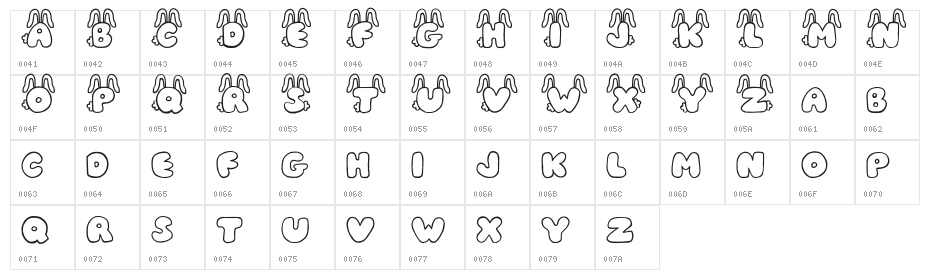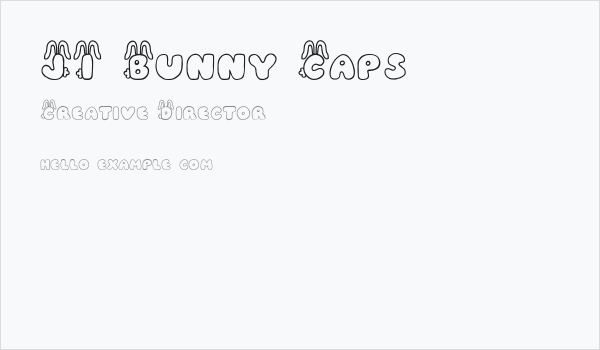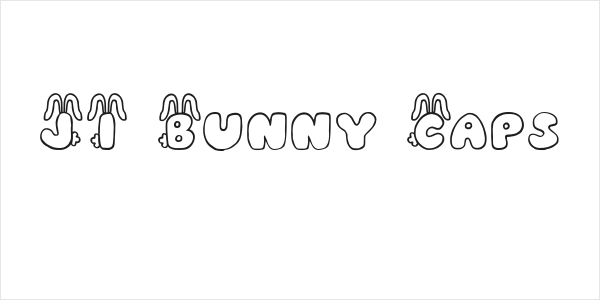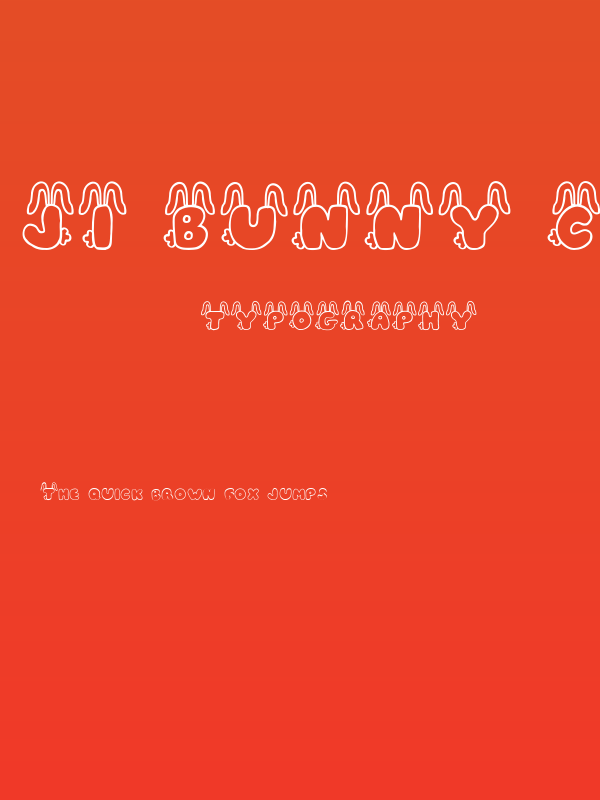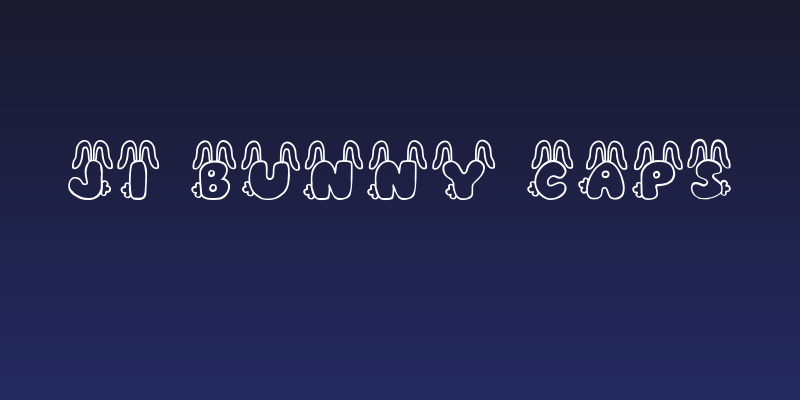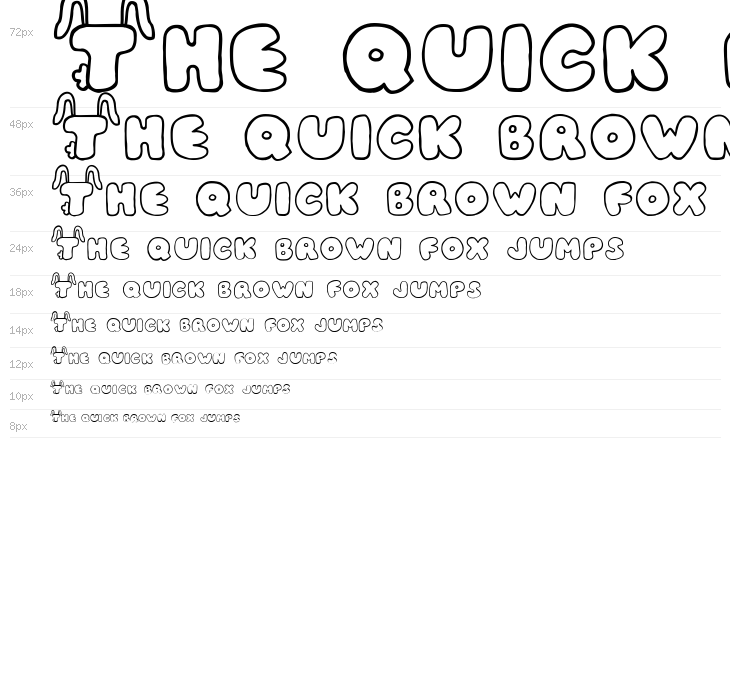
JI Bunny Caps Font
JI Bunny Caps Description
This playful and whimsical font features uppercase letters adorned with bunny ears, creating a fun and engaging visual style. The characters are bold and rounded, giving them a friendly and approachable appearance. The design is consistent across all letters, with each character maintaining a uniform thickness and style. The bunny ears add a unique decorative element, making this font ideal for children's projects or Easter-themed designs. The overall look is both charming and distinctive, capturing attention with its creative flair.
| Proposed Projects | Ideal for children's books, Easter-themed invitations, playful branding, and educational materials. |